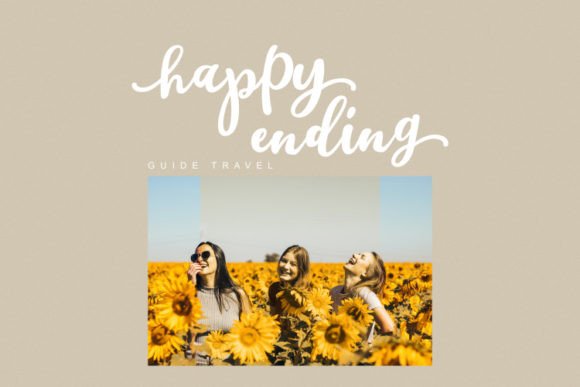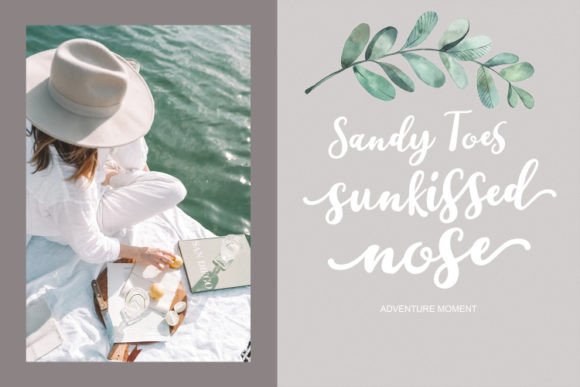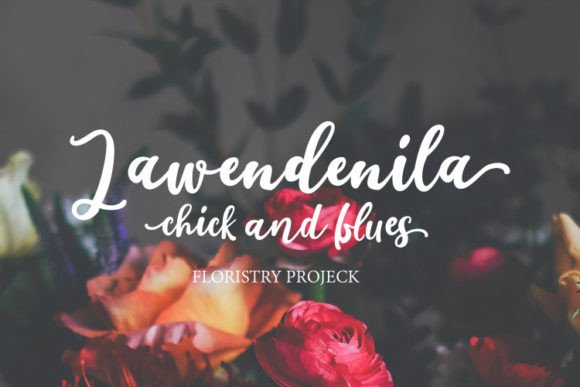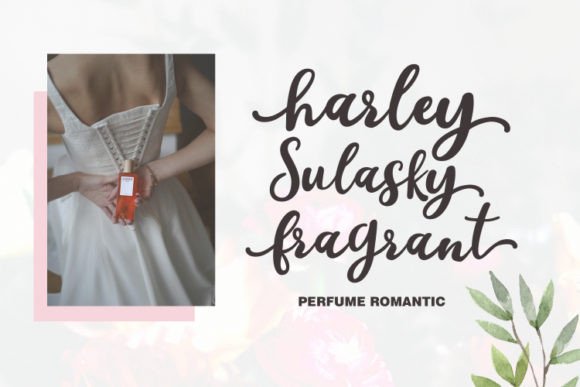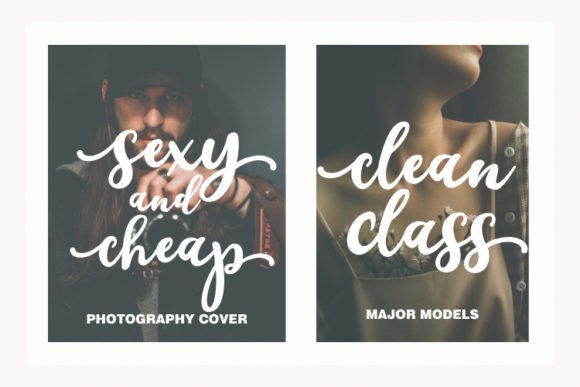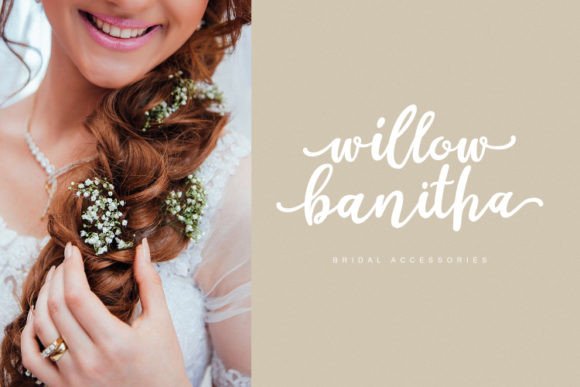
Introduction to Shelikes Font
Have you ever stared at a blank page, waiting for the perfect spark to ignite your creative project? For designers, finding the right font can be the difference between a dull and engaging design. That’s where the Shelikes Font comes in – a stunning, handwritten font that adds a touch of luxury to any project.
With its unique feel and high-quality design, the Shelikes Font is a valuable resource for designers looking to elevate their work. Whether you’re working on a brochure, a website, or a social media campaign, this font is sure to make a statement. Plus, with its transparent background, it’s perfect for layering and customizing to fit your design needs.
Key Features of Shelikes Font
- Unique characteristics: bold, modern, and elegant design, making it perfect for headings and titles.
Honest Review: Shelikes Font
I recently stumbled upon Shelikes Font while searching for a design resource to spice up a creative project. After giving it a try, I must say it’s been a pleasant discovery. The font offers a high quality design that can elevate your visual content.
What works well: ✨ The font’s modern design aesthetic makes it perfect for various creative projects, from digital art to branding materials. It’s also available for free download, which is a major plus for designers working on a tight budget.
- Modern design style that can be applied to various creative projects
Limitations: ⚠️ The font might not be suitable for print materials due to its digital design focus. Additionally, the font family is relatively small, which may limit its versatility.
Overall impression: Shelikes Font is a solid addition to any designer’s toolkit. While it may have some limitations, its modern design and high quality make it a great resource for creative projects that require a digital touch.
Tips for Getting the Most Out of Shelikes Font
For the best results, use Shelikes Font with a transparent background or a high-quality image. Experiment with different font sizes and styles to add visual interest to your design. Shelikes Font is a great design resource for anyone looking to create unique and creative projects.
Shelikes Font is ideal for use in branding, marketing materials, and creative projects. Its unique design and high-quality aesthetic make it a great choice for presentations, reports, and documents that require a professional look.